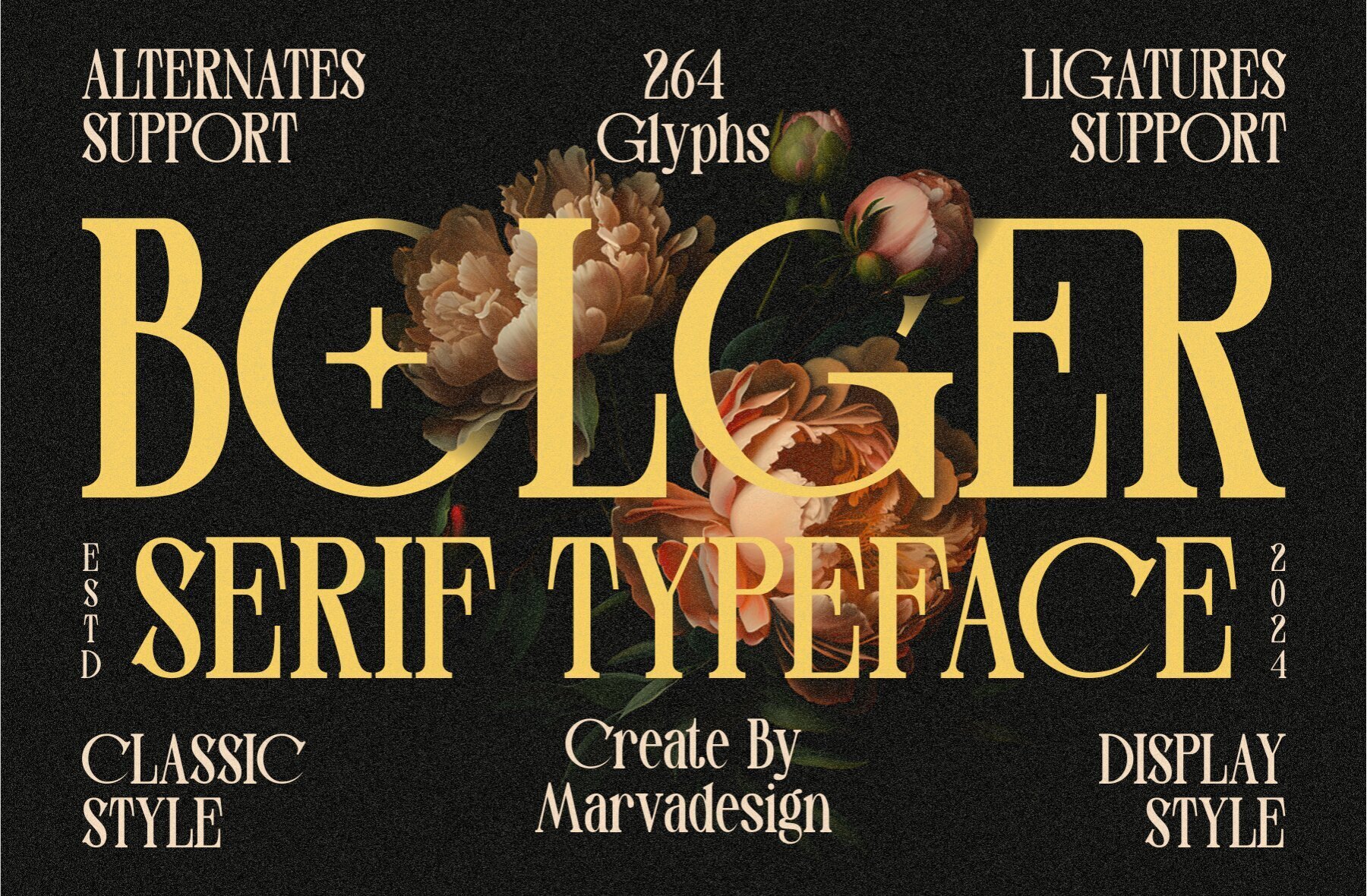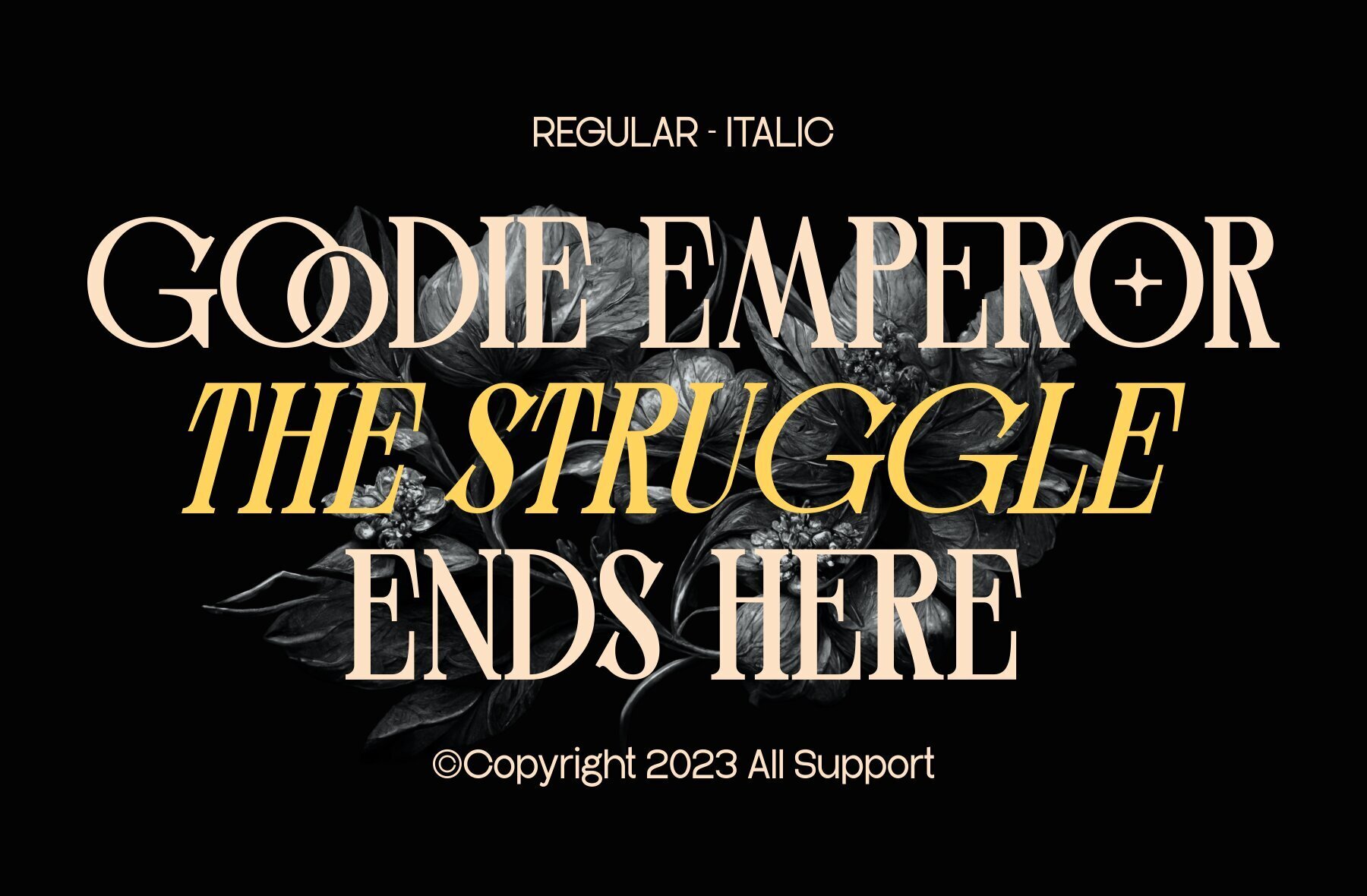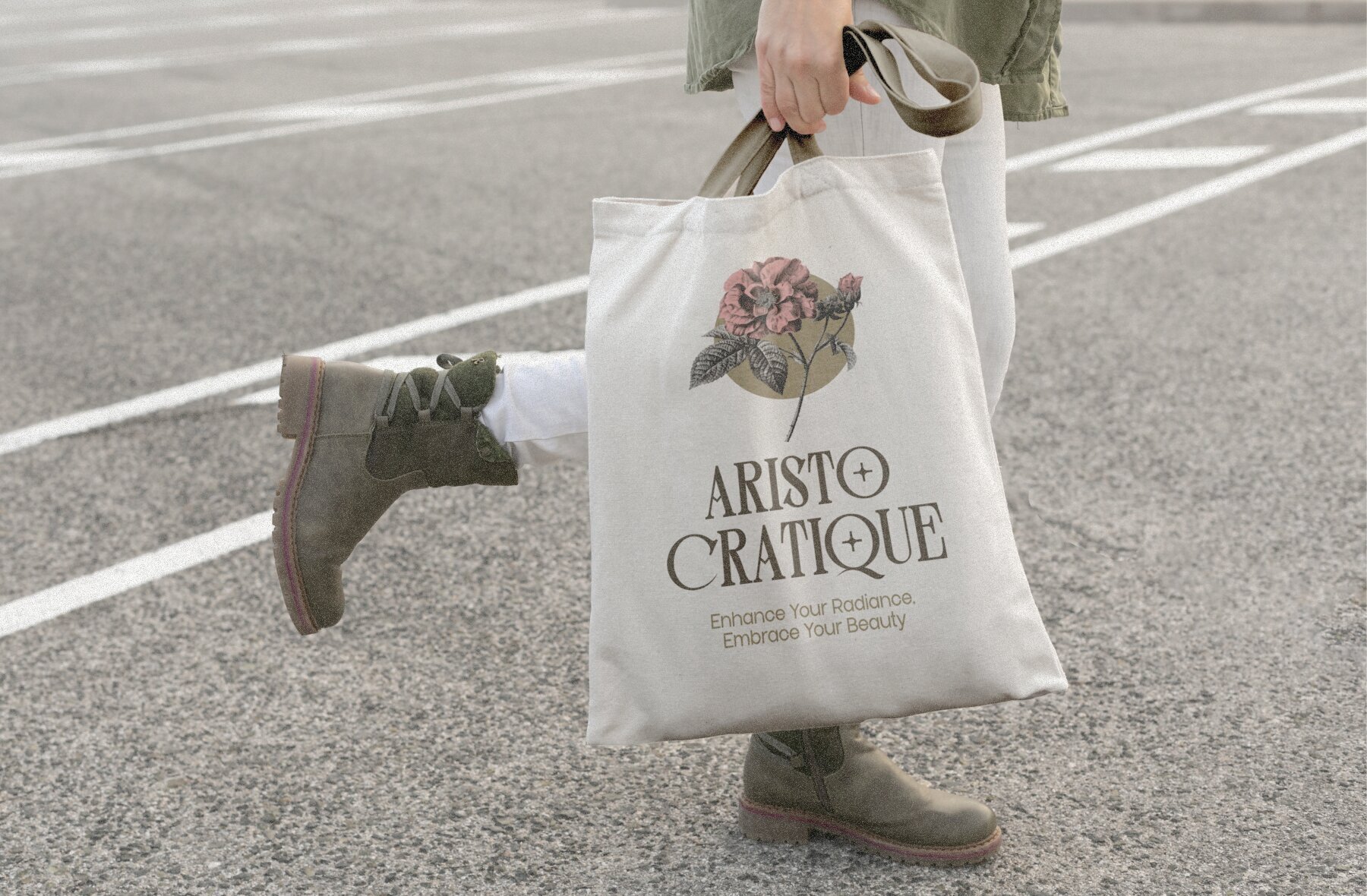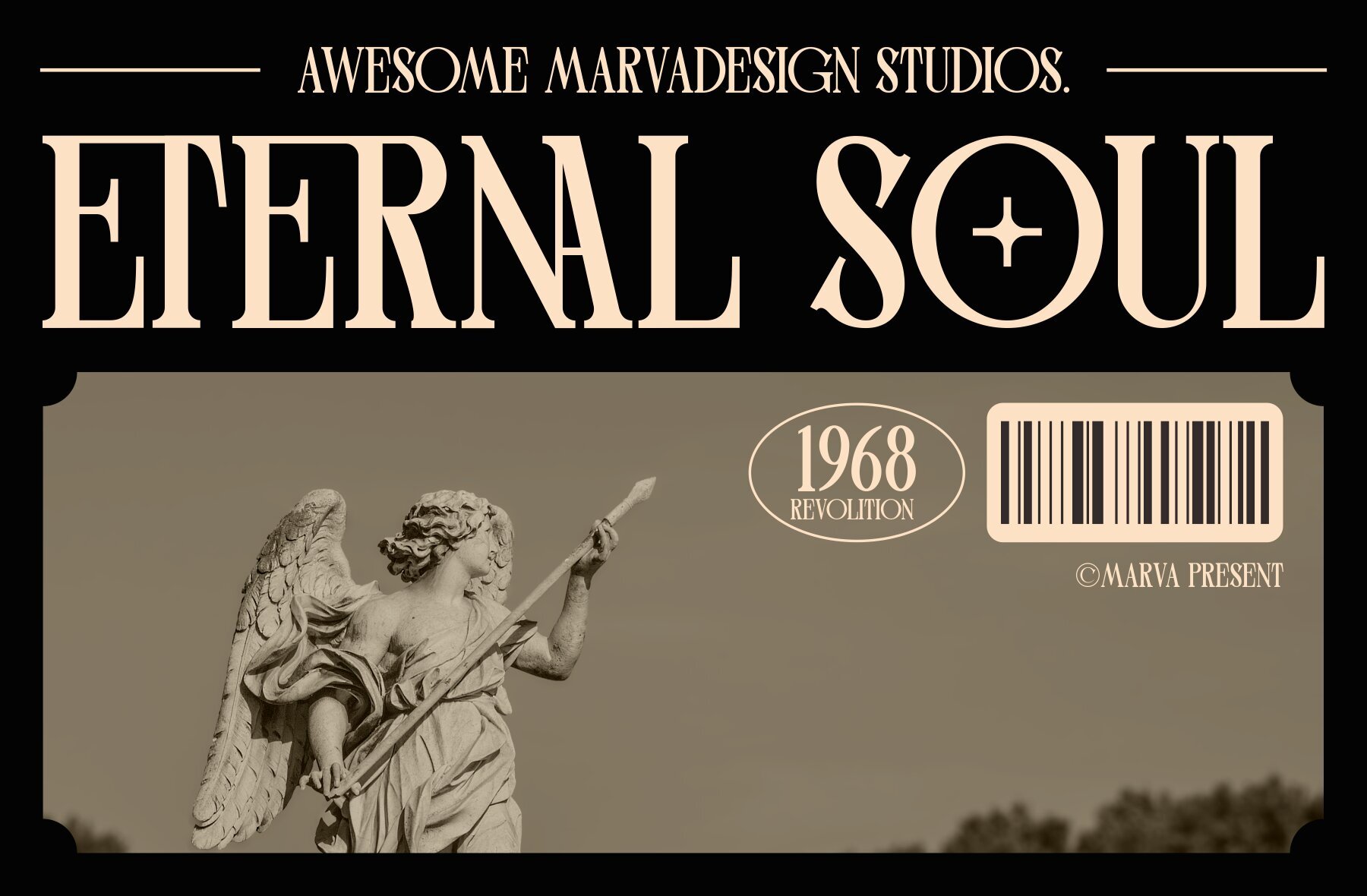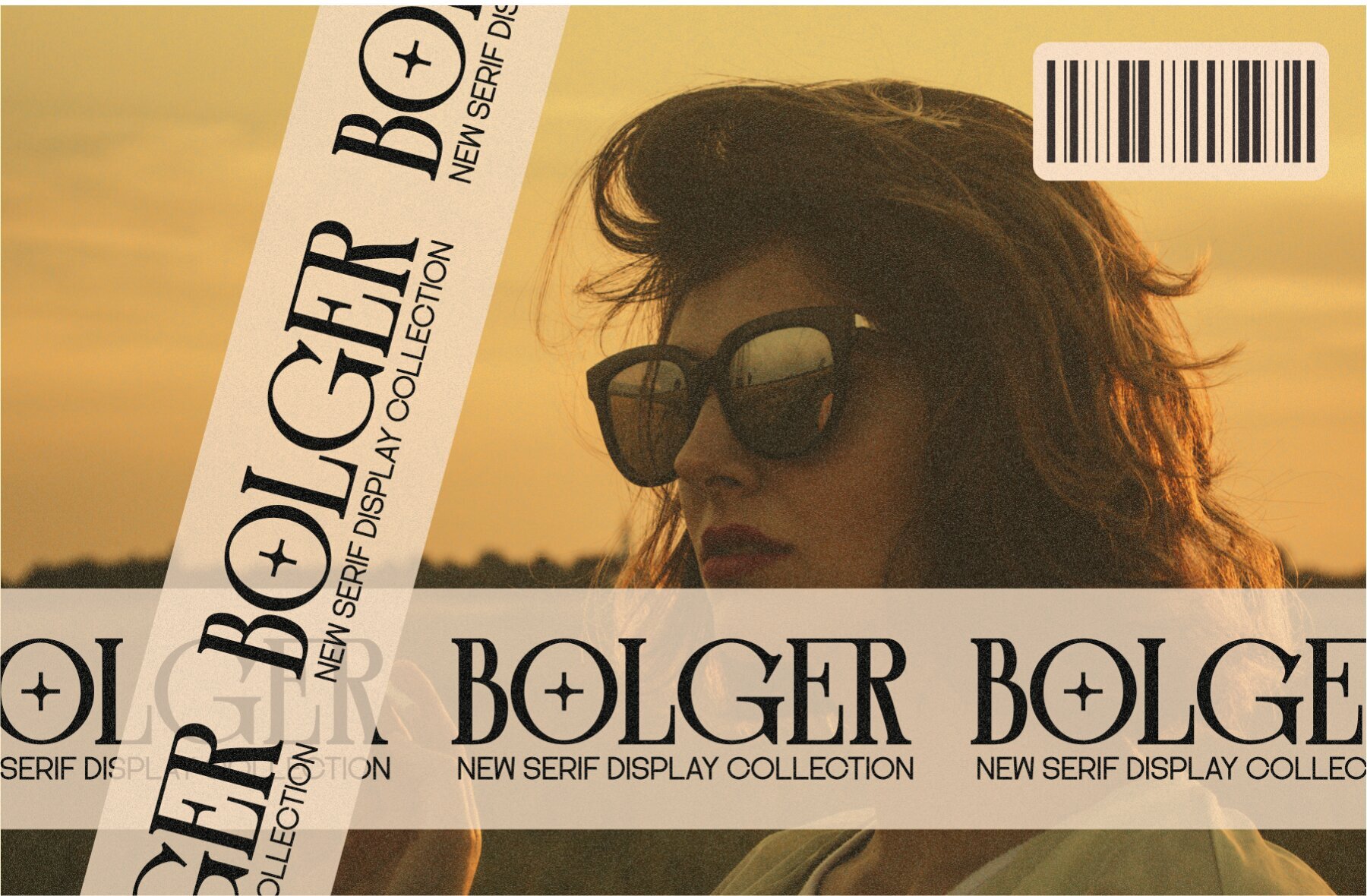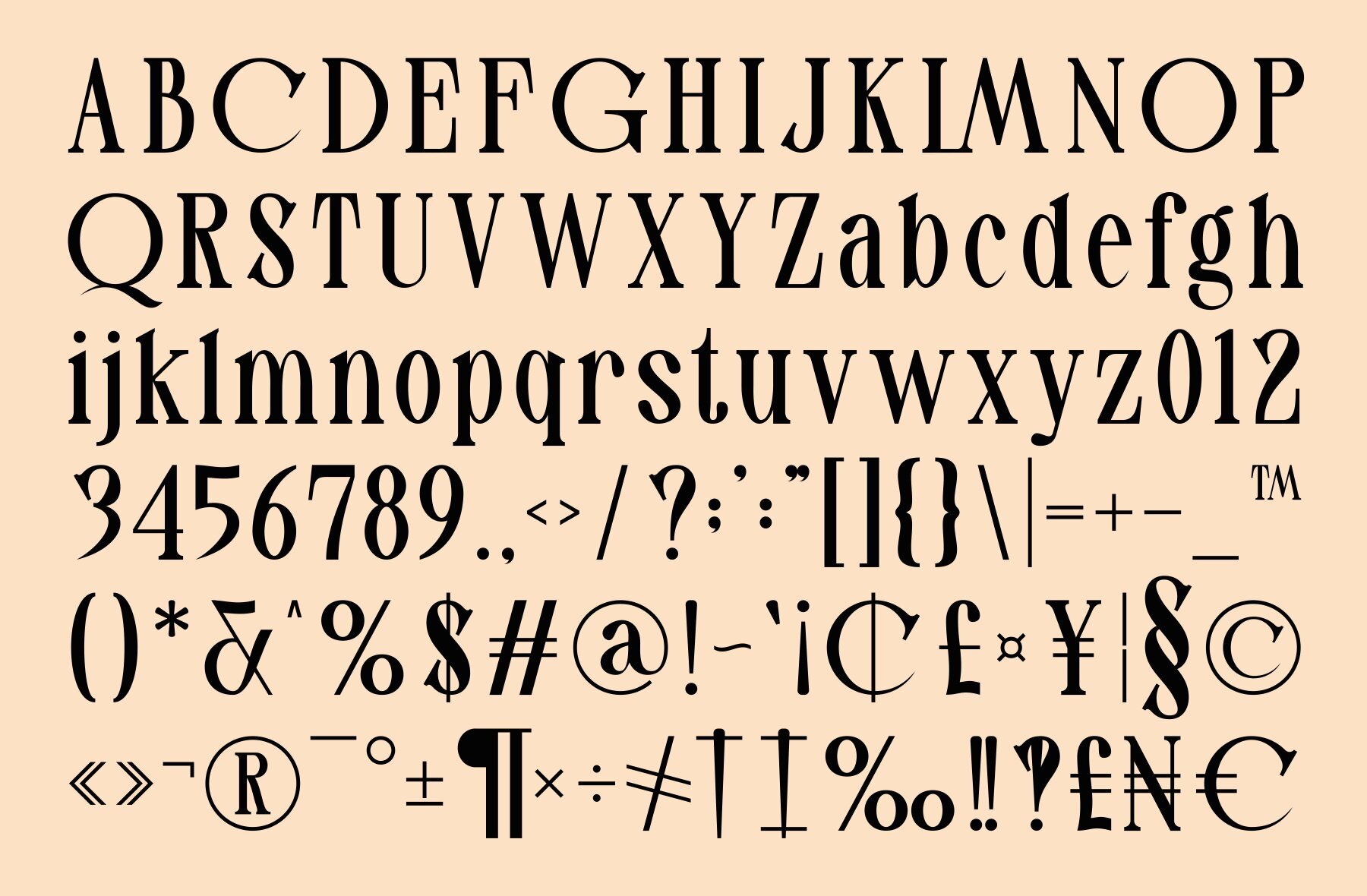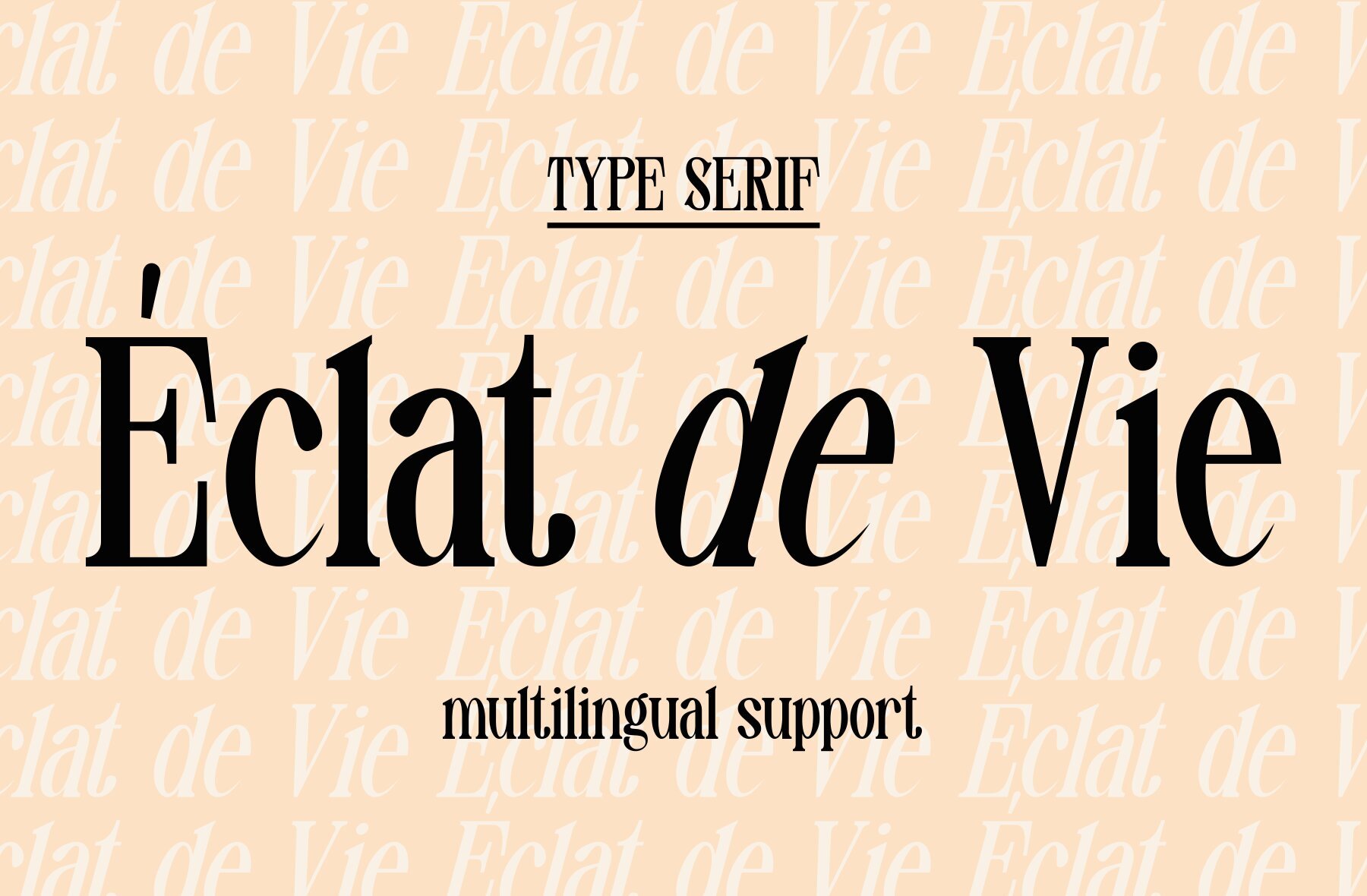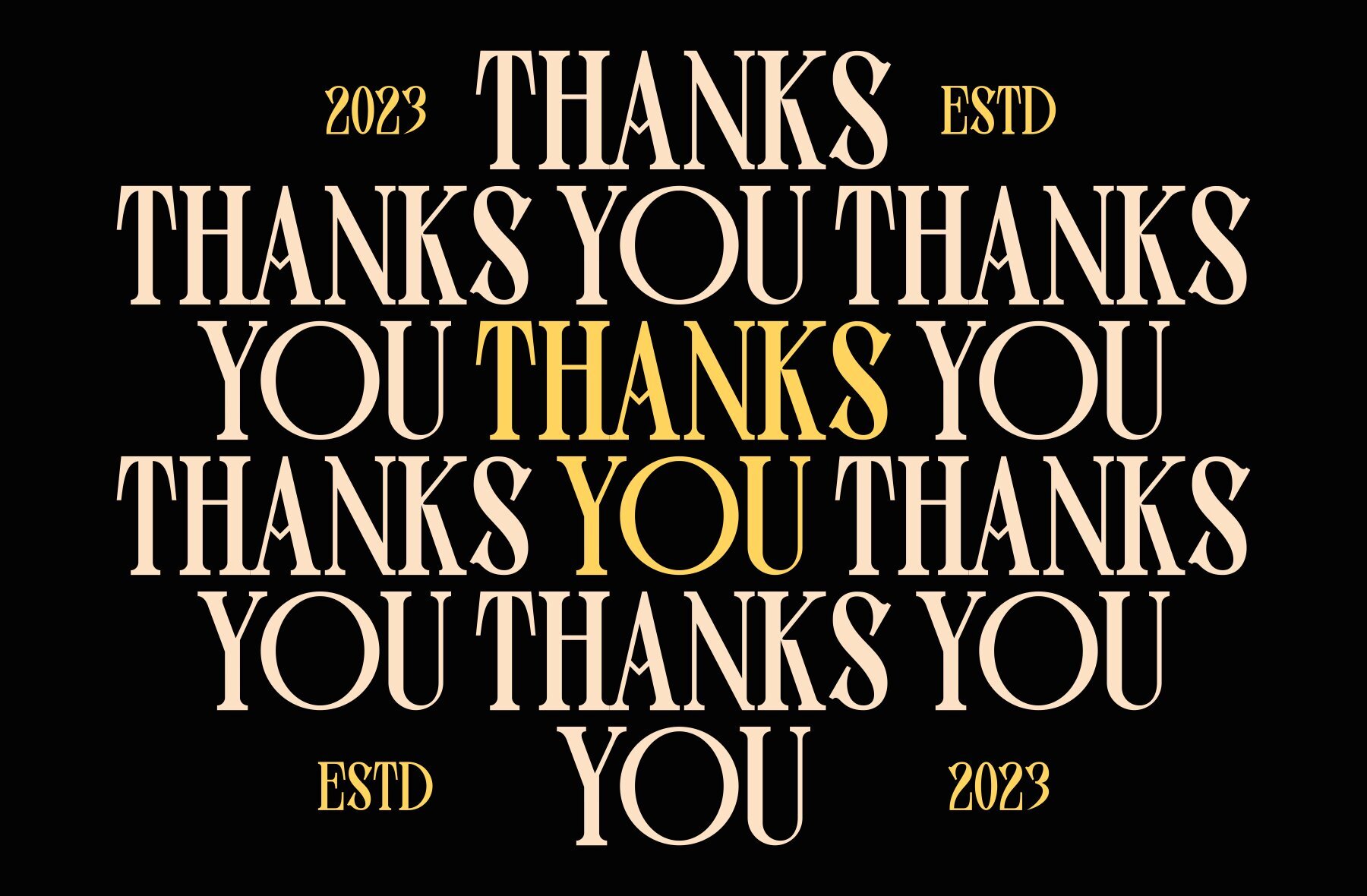
Bolger Font
Bolger Font introduces an elegant blend of tradition and modernity. This serif display font combines the classic roots of a serif with contemporary decorative elements, making it an ideal choice for a broad range of design applications.Bolger: An Authentic Serif Display Font